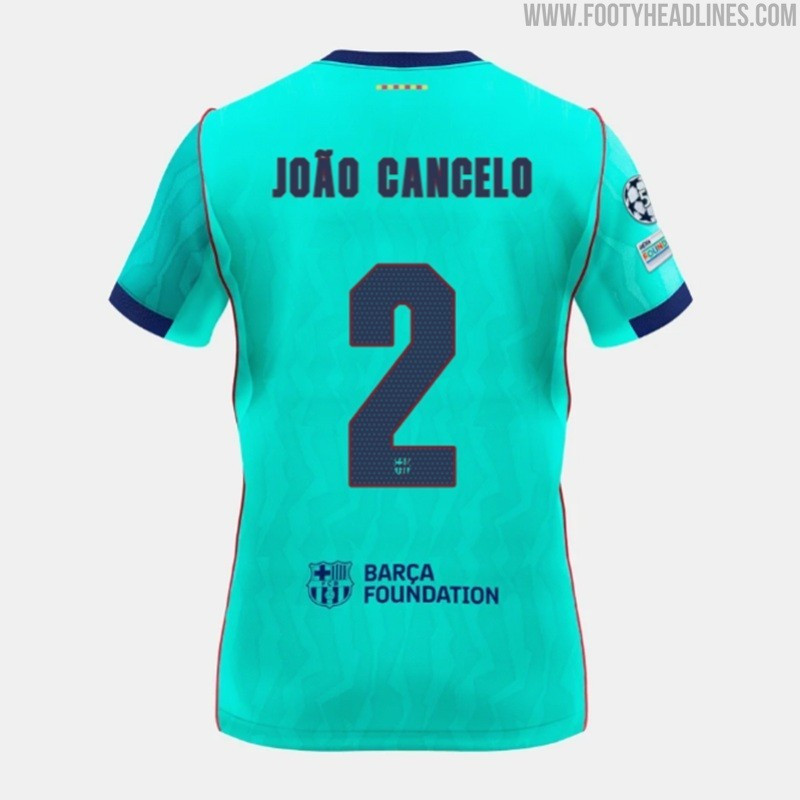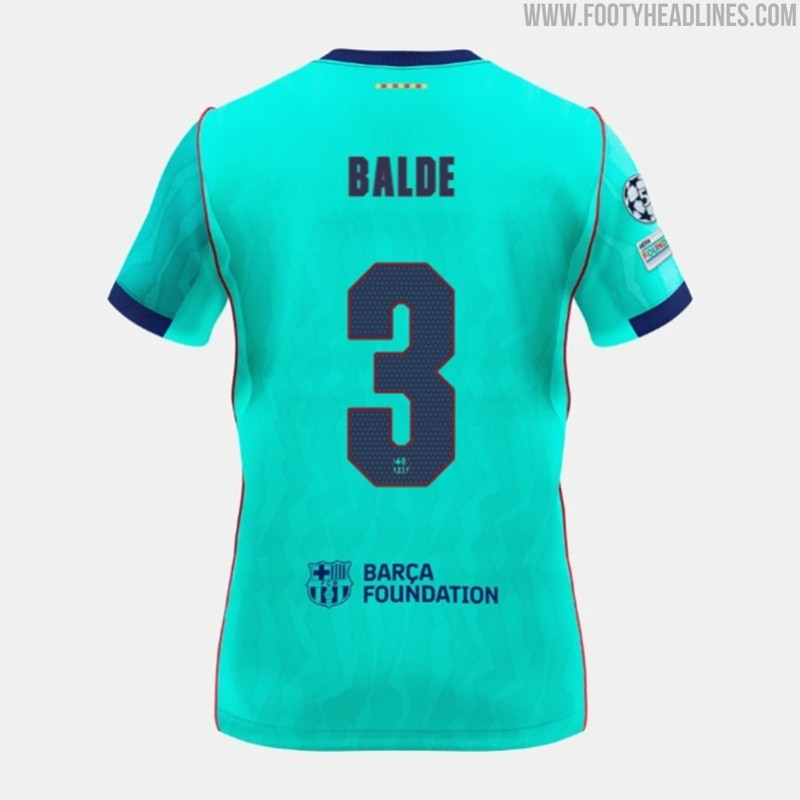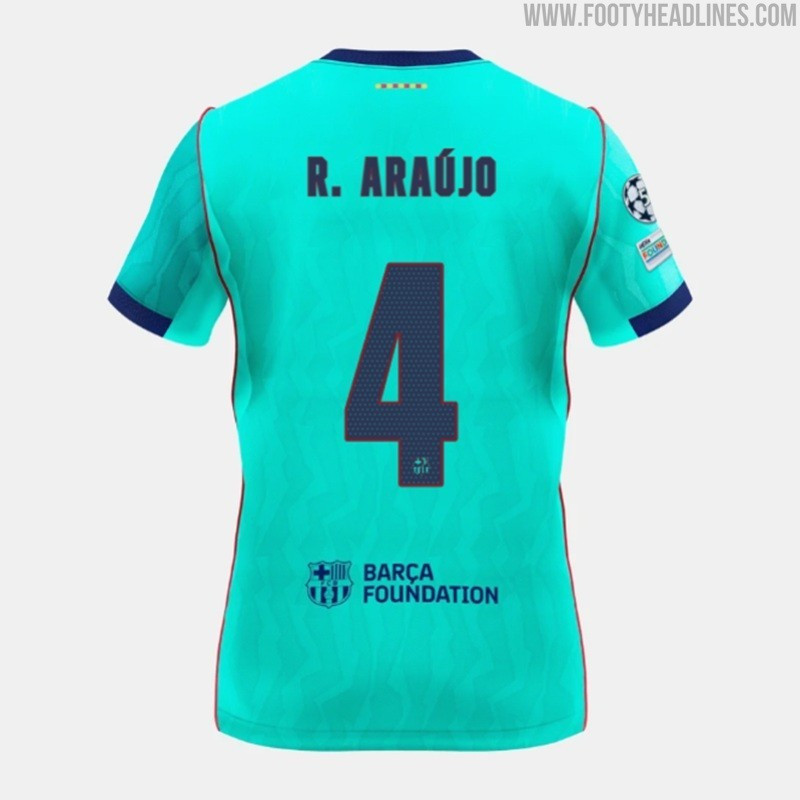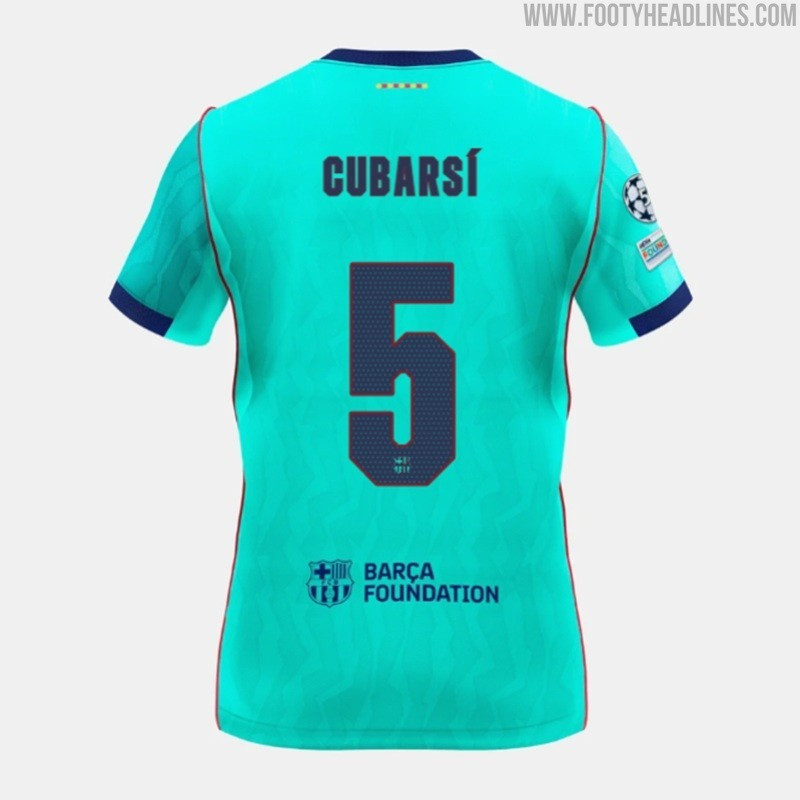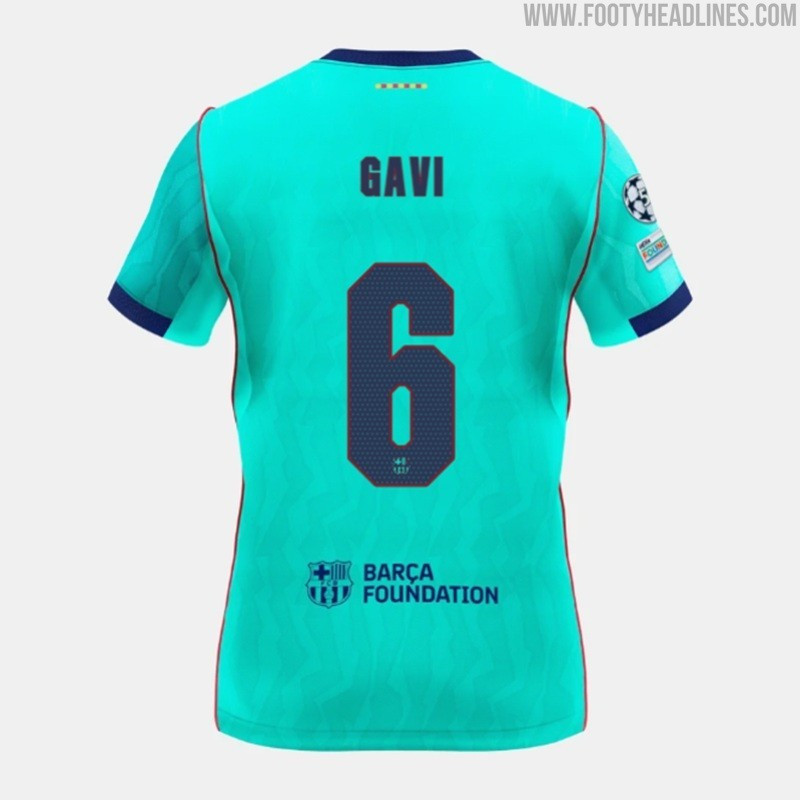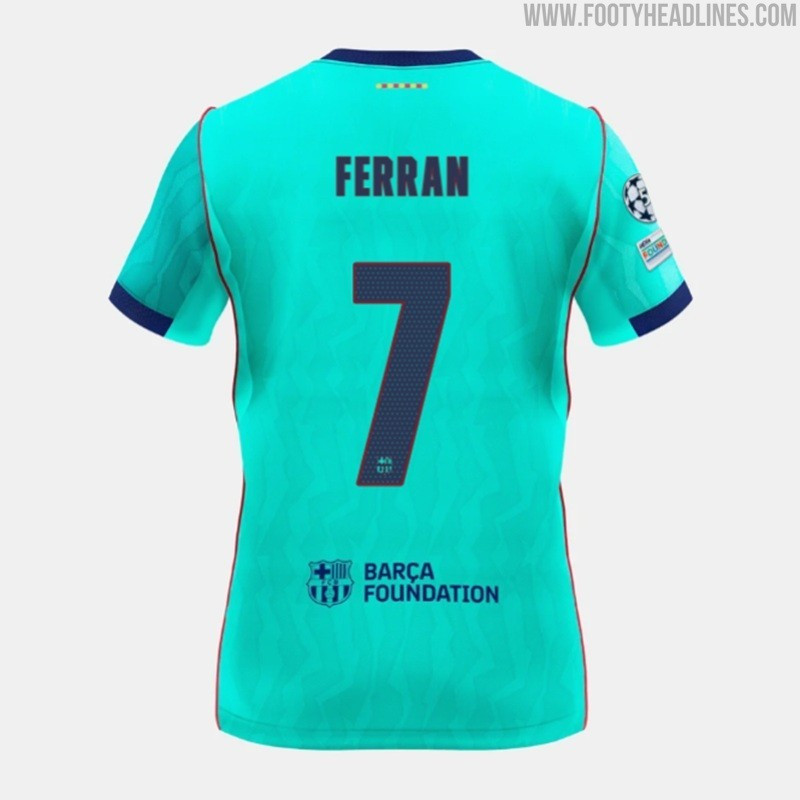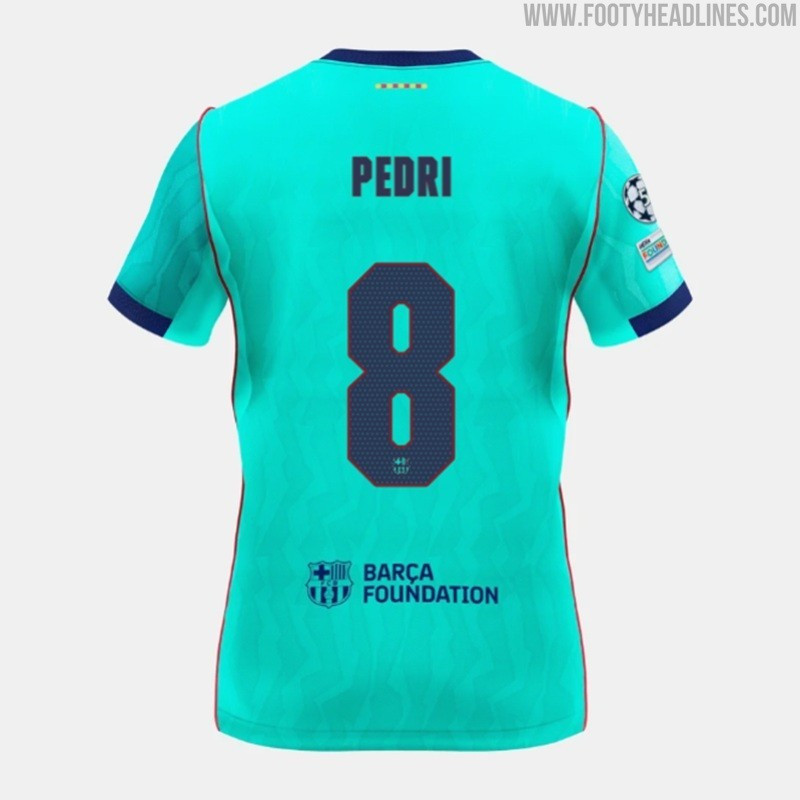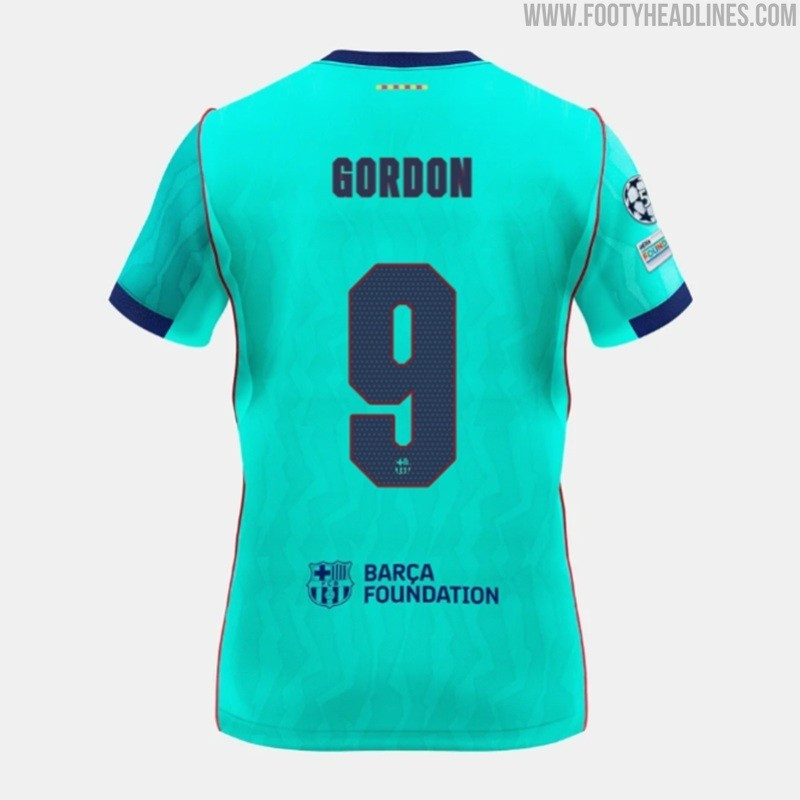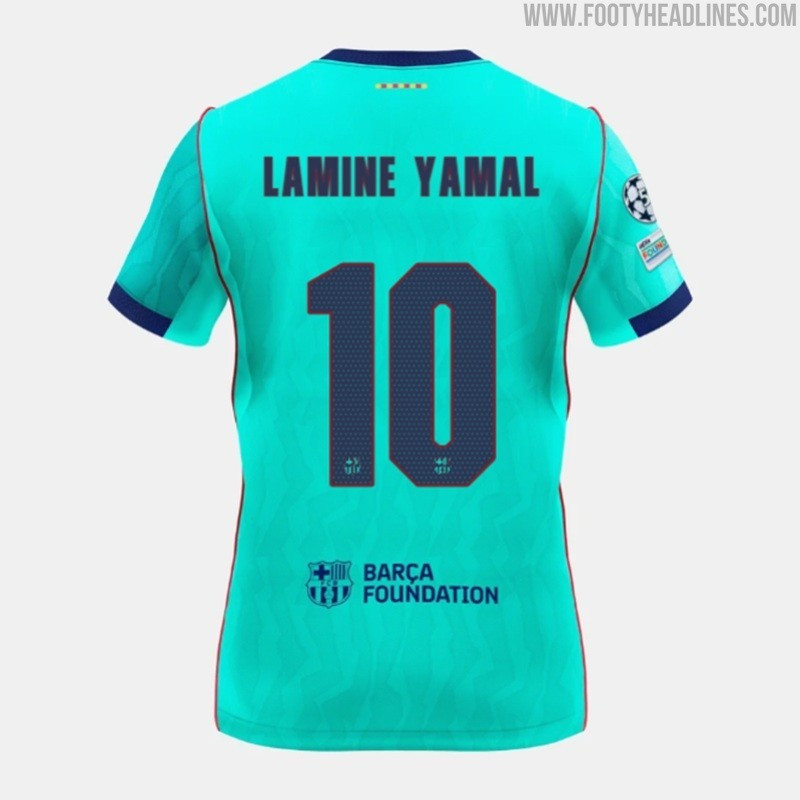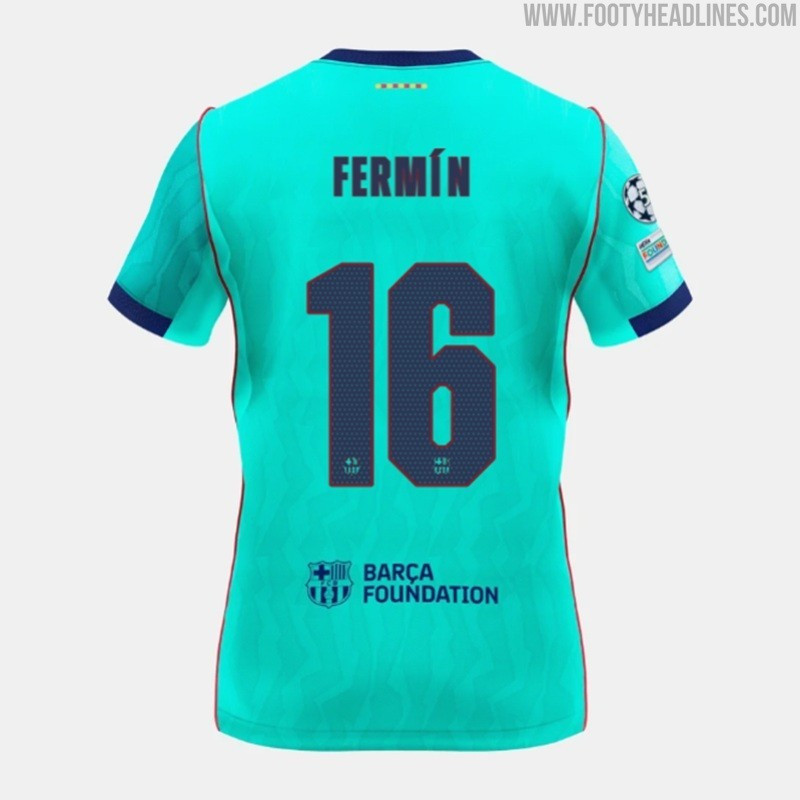
All-New FC Barcelona 26-27 Third Kit Font Released
- Custom Typeface Release: FC Barcelona has unveiled an all-new, custom typeface designed exclusively for their 2026-2027 third jersey following its official launch.
- Distinctive Aesthetic: The new third kit font features a distinctly modern, structured, square, blocky, and angular design with sharp edges, providing a clean, high-tech appearance that contrasts with the club's smoother home and away typography.
Following the official launch of their new third kit, FC Barcelona has unveiled an all-new, custom typeface designed exclusively for the 2026-2027 third jersey.
FC Barcelona 26-27 Third Kit Font
Check out the new FC Barcelona 26-27 third kit font below.
The new FC Barcelona 26-27 third kit font introduces a distinctly modern, structured aesthetic that sets it apart from the rest of the club's 2026-2027 lineup.
Unlike the smoother, more rounded, and stylized typography featured on Barcelona's 2026-2027 home and away shirts, the third kit font boasts a far more square, blocky, and angular design. The sharp edges and boxy proportions give player names and numbers a clean, high-tech appearance on the back of the bright turquoise jersey.
Rendered in dark navy blue, the numbers and letters provide maximum contrast against the vibrant base color for optimal visibility on the pitch.
FC Barcelona 26-27 Typefaces